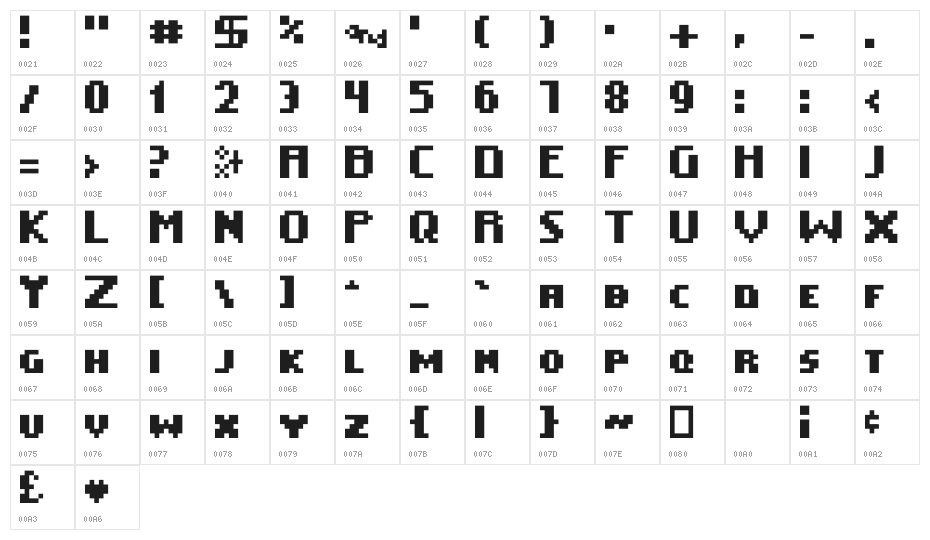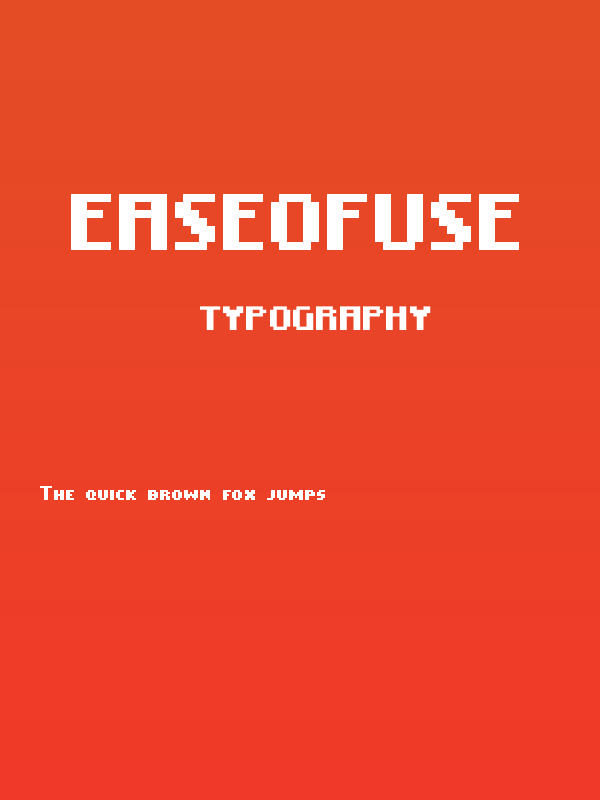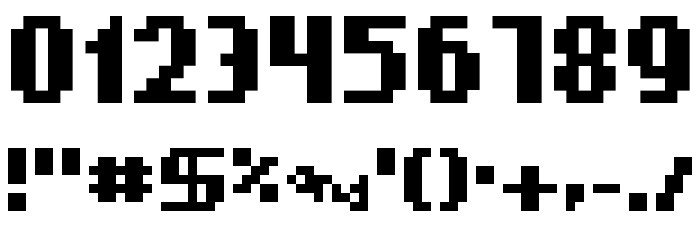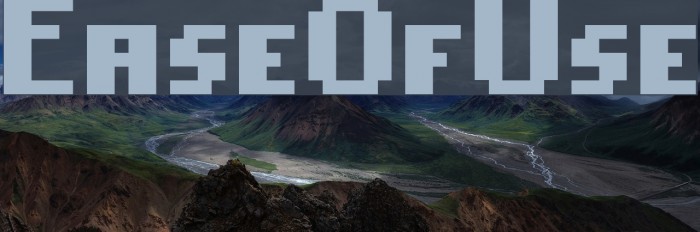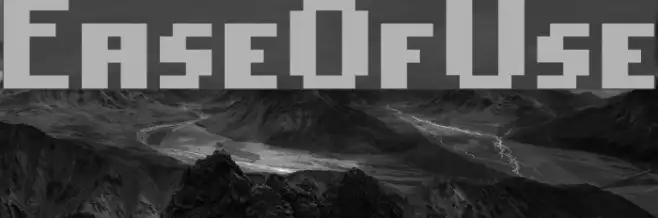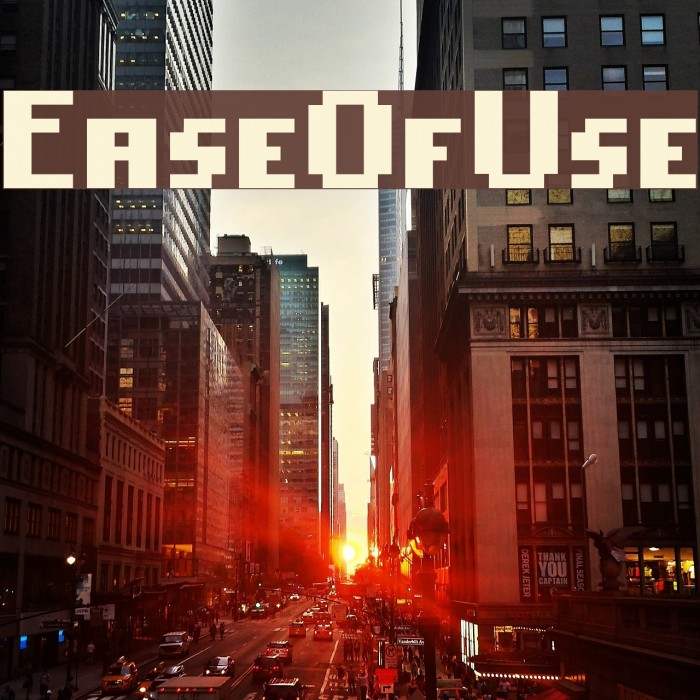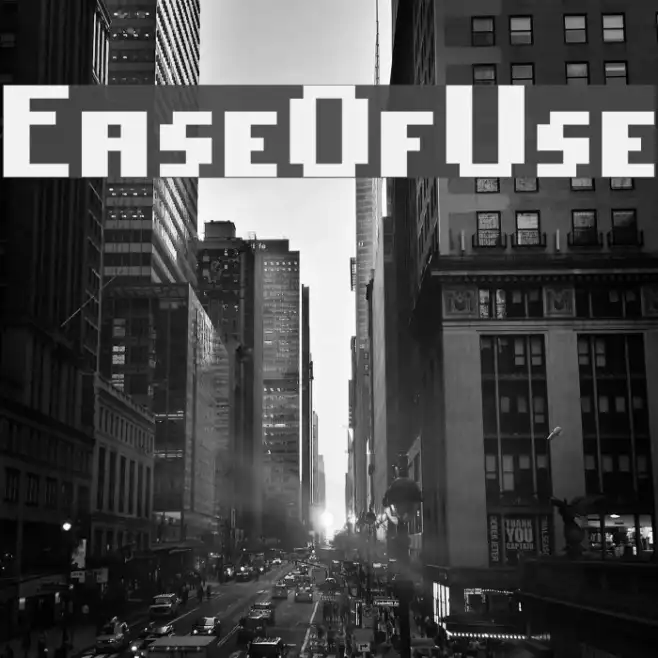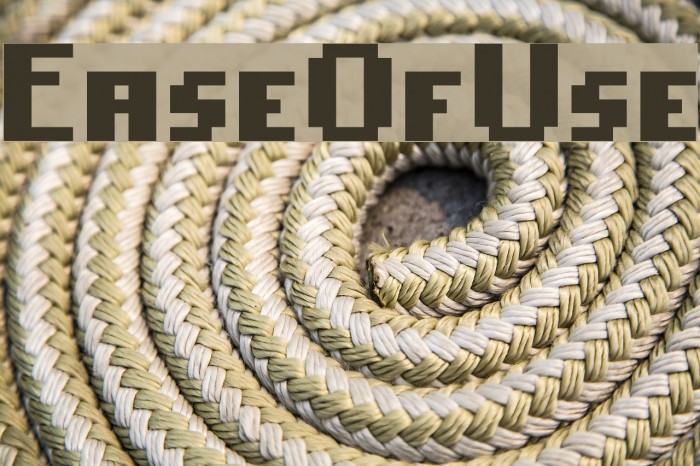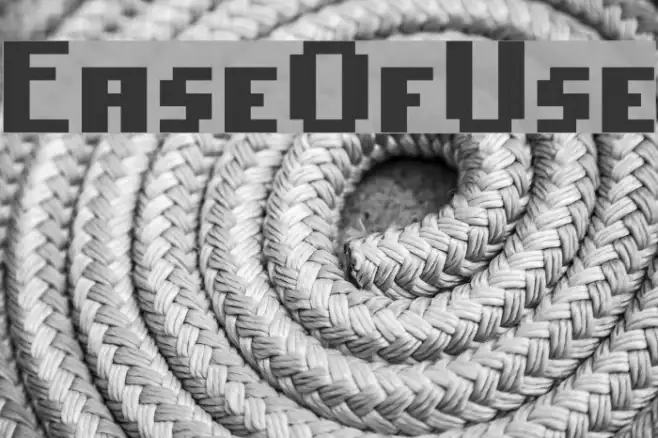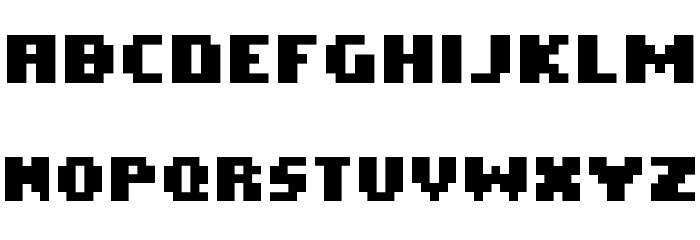
EaseOfUse Font
EaseOfUse Description
This font features a bold, pixelated style reminiscent of early digital and arcade aesthetics. Each character is constructed with a blocky, geometric form, giving it a distinctly retro and technological appearance. The uppercase and lowercase letters maintain a consistent height, contributing to a uniform and cohesive look. The numerals and special characters follow the same design principles, ensuring visual harmony across all elements. This font's simplicity and clarity make it highly legible, even at smaller sizes, while its unique style adds a playful and nostalgic touch to any design.